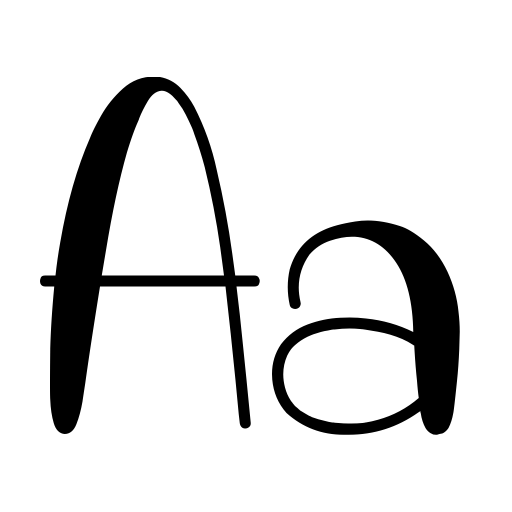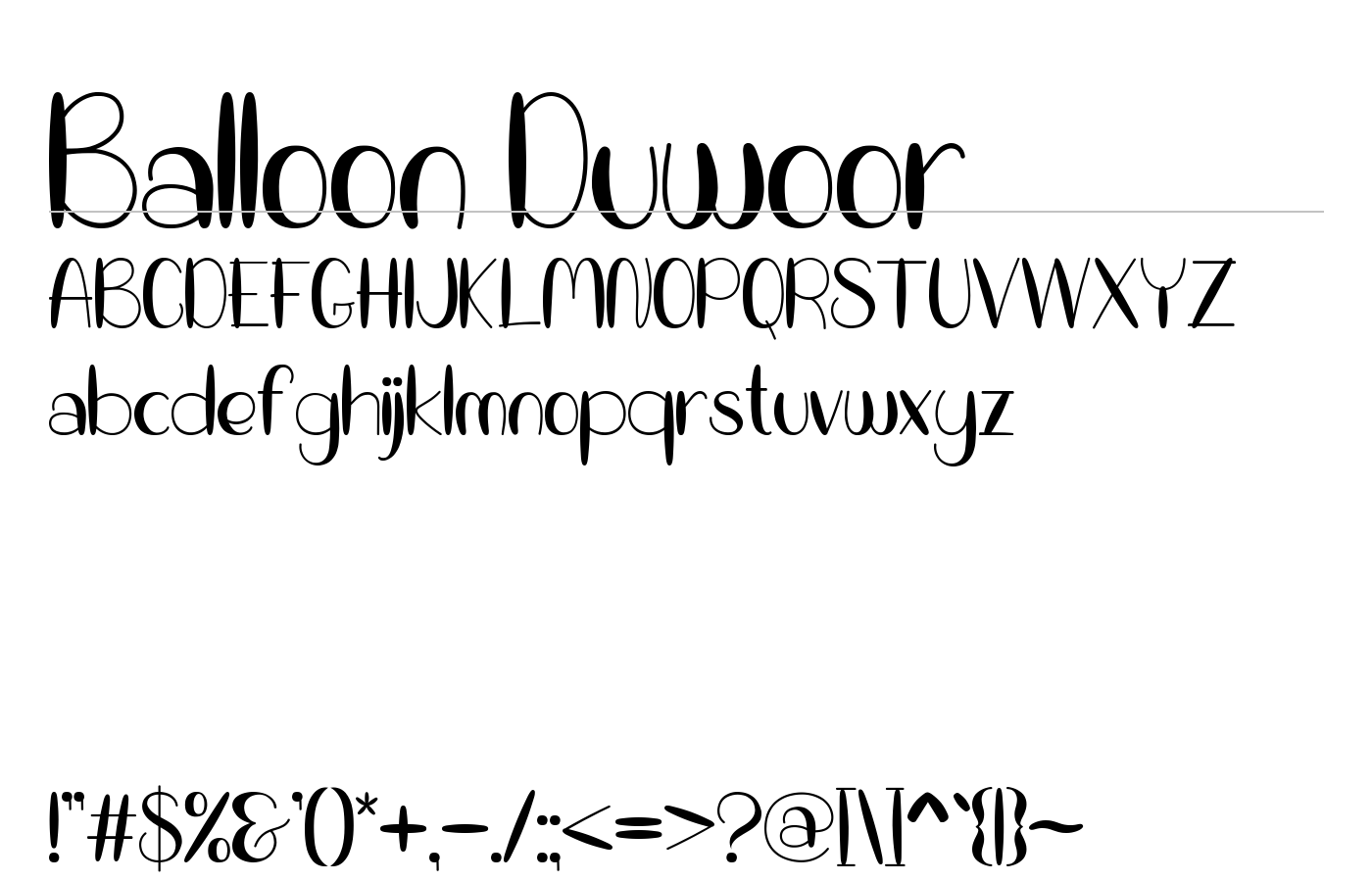
Balloon Duwoor is a playful and quirky sans serif font characterized by its tall, narrow letterforms and uneven stroke weight, giving it a hand-drawn, whimsical feel. With its irregular shapes and light, airy touch, it works well for creative, casual designs like children's books, invitations, and fun branding that seeks a unique, friendly personality. Its distinct style makes it perfect for headlines and accents where a lively, informal tone is desired.
Balloon Duwoor Font
About Balloon Duwoor Font
| Font family | Balloon Duwoor Font |
| Designer | Sealoung+Saiful Anwar |